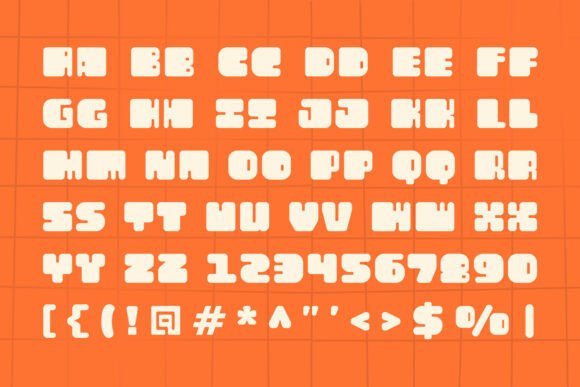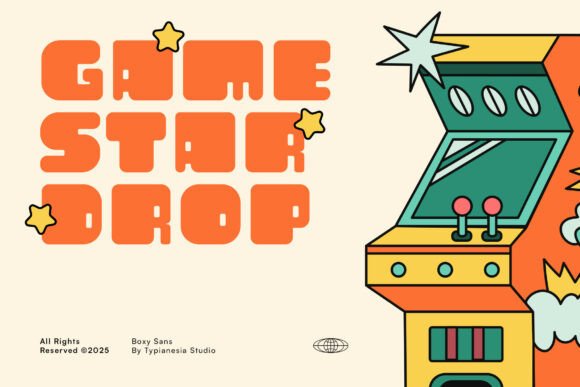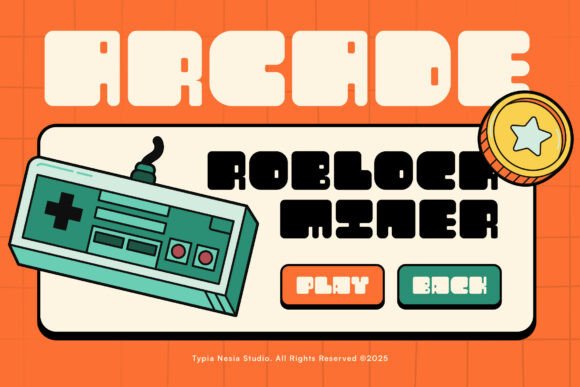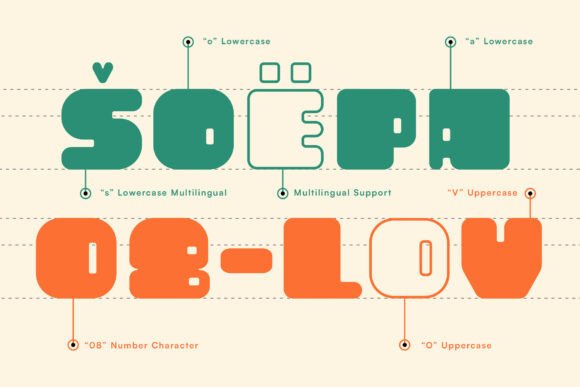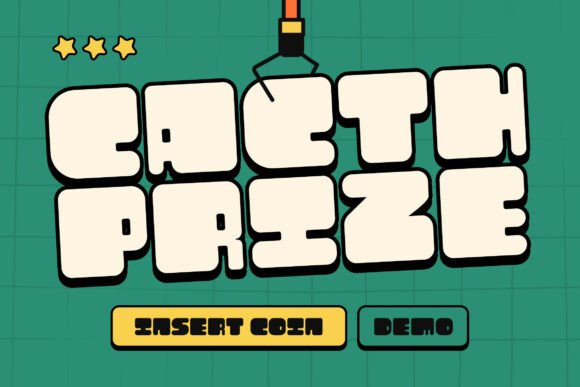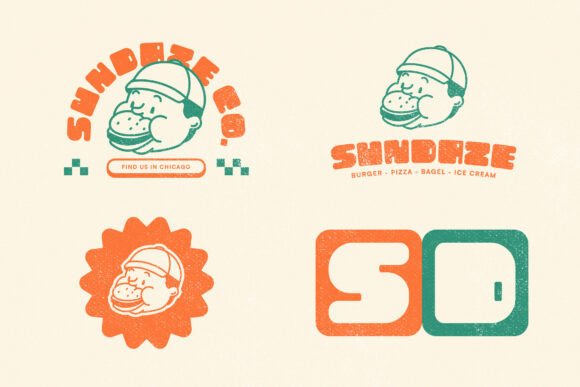
Haltime Font: The Ultimate Bold Retro Rounded Boxy Sans Font for Modern Designs
Are you looking for a font that can add a bold, retro, and playful touch to your designs? Look no further than Haltime Font, a modern display typeface that combines strong boxy shapes with smooth rounded corners to create a unique and eye-catching visual identity. In this article, we’ll explore the features and benefits of Haltime Font, and how it can elevate your brand and designs to the next level.
What is Haltime Font?
Haltime Font is a bold retro rounded boxy sans font designed to bring a sense of nostalgia and playfulness to your visuals. Its confident letterforms deliver high readability while maintaining a playful tone that stands out across digital and print media. With its clean sans structure and strong boxy shapes, Haltime Font is perfect for creating eye-catching logos, fun branding, colorful packaging, and more.
Key Features of Haltime Font
- Bold and Playful Design: Haltime Font features a bold and playful design that is perfect for creating eye-catching logos, fun branding, and colorful packaging.
- Retro and Groovy Aesthetic: With its strong boxy shapes and smooth rounded corners, Haltime Font combines bold, retro, and groovy aesthetics with a clean sans structure.
- High Readability: Haltime Font’s confident letterforms deliver high readability, making it perfect for use in digital and print media.
- Versatile: Haltime Font is highly versatile and can be used for a wide range of design projects, including logos, branding, packaging, bakery, café, kid-focused designs, games, arcade themes, and more.
Who is Haltime Font for?
Haltime Font is perfect for designers and crafters who want to add a bold, retro, and playful touch to their designs. It’s ideal for:
- Graphic Designers: Haltime Font is perfect for graphic designers who want to create eye-catching logos, fun branding, and colorful packaging.
- Crafters: Haltime Font is ideal for crafters who want to add a playful and modern touch to their designs, such as bakery, café, and kid-focused designs.
- Game Developers: Haltime Font is perfect for game developers who want to create arcade themes and games with a retro and groovy aesthetic.
Benefits of Using Haltime Font
- Adds a Bold and Playful Touch: Haltime Font adds a bold and playful touch to your designs, making them stand out from the crowd.
- Elevates Your Brand: Haltime Font can elevate your brand and give it a modern and playful visual identity.
- Increases Readability: Haltime Font’s confident letterforms deliver high readability, making it perfect for use in digital and print media.
- Saves Time: With Haltime Font, you can save time and effort in creating unique and eye-catching designs.
How to Use Haltime Font
Using Haltime Font is easy and straightforward. Here are some tips on how to use it:
- Use it for Logos and Branding: Haltime Font is perfect for creating eye-catching logos and fun branding.
- Use it for Packaging: Haltime Font is ideal for colorful packaging and can add a playful and modern touch to your designs.
- Use it for Digital and Print Media: Haltime Font’s confident letterforms deliver high readability, making it perfect for use in digital and print media.
In conclusion, Haltime Font is a bold retro rounded boxy sans font that is perfect for designers and crafters who want to add a playful and modern touch to their designs. With its strong boxy shapes, smooth rounded corners, and clean sans structure, Haltime Font combines bold, retro, and groovy aesthetics with high readability. Whether you’re creating logos, branding, packaging, or games, Haltime Font is a versatile and eye-catching font that can elevate your brand and designs to the next level.